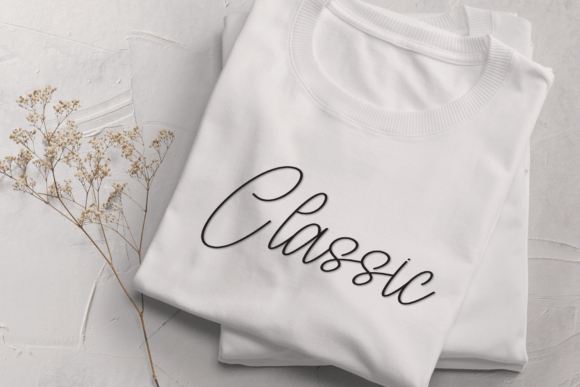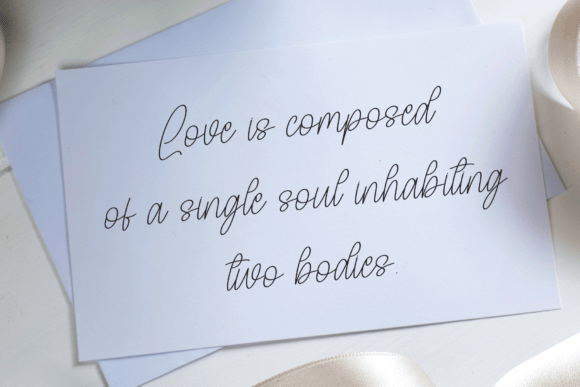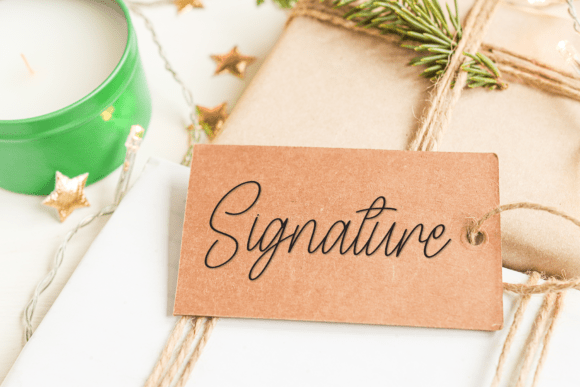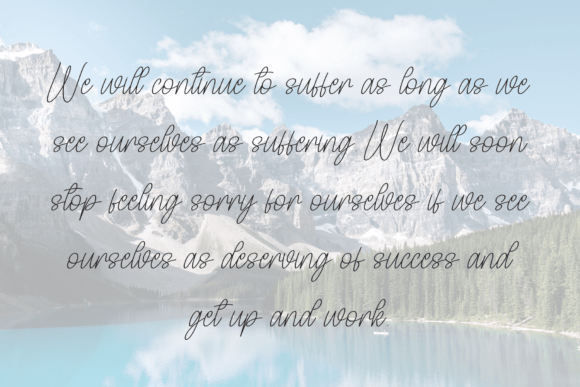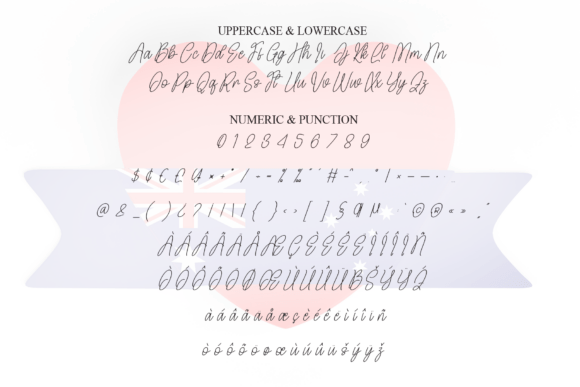
Bringing Coastal Elegance to Your Designs with Aussie Font
Are you looking for a font that captures the essence of coastal elegance and freedom? Look no further than Aussie, a beautiful handwritten script font that is sure to elevate your designs to the next level. With its fresh “new style” and incredibly long, dramatic swashes, Aussie is the perfect choice for designers and crafters who want to add a touch of sophistication and whimsy to their work.
The Characteristics of Aussie Font
Aussie font is defined by its delicate, looping terminal flourishes and incredibly long, dramatic swashes that create a feeling of effortless motion. Its airy and romantic silhouette makes it ideal for a variety of design projects, from travel blogs and beach-themed wedding invitations to artisanal product packaging and feminine branding.
One of the standout features of Aussie font is its unique blend of elegance and playfulness. The font’s long swashes and flourishes give it a sense of movement and energy, while its delicate lines and curves add a touch of sophistication and refinement.
Perfect for Coastal-Inspired Designs
Aussie font is perfectly suited for designs that evoke the feeling of the coast. Whether you’re creating a travel blog, a beach-themed wedding invitation, or a label for an artisanal product, Aussie font is sure to bring a touch of coastal elegance to your work.
The font’s relaxed, adventurous spirit makes it ideal for designs that capture the essence of the ocean and the great outdoors. With Aussie font, you can turn every word into a visual journey that transports your audience to a world of sun, sand, and surf.
Using Aussie Font in Your Designs
Aussie font is incredibly versatile and can be used in a variety of design projects. Here are a few ideas to get you started:
- Travel blogs: Use Aussie font to add a touch of coastal elegance to your travel blog. Whether you’re writing about beach destinations, outdoor adventures, or cultural experiences, Aussie font is sure to bring your words to life.
- Beach-themed wedding invitations: Make your beach-themed wedding invitation stand out with Aussie font. The font’s delicate lines and curves add a touch of romance and whimsy, while its long swashes and flourishes create a sense of drama and excitement.
- Artisanal product packaging: Add a touch of coastal elegance to your artisanal product packaging with Aussie font. Whether you’re packaging handmade soaps, candles, or jewelry, Aussie font is sure to make your products stand out.
- Feminine branding: Use Aussie font to create a feminine and elegant brand identity. The font’s delicate lines and curves add a touch of sophistication and refinement, while its long swashes and flourishes create a sense of movement and energy.
Tips for Getting the Most Out of Aussie Font
Here are a few tips for getting the most out of Aussie font:
- Experiment with different sizes: Aussie font looks great in a variety of sizes, from large headlines to smaller body text. Experiment with different sizes to find the one that works best for your design.
- Play with swashes: One of the standout features of Aussie font is its long, dramatic swashes. Experiment with different swash combinations to add a touch of elegance and whimsy to your design.
- Pair with complementary fonts: Aussie font pairs well with a variety of complementary fonts. Experiment with different font combinations to find the one that works best for your design.
Aussie font is a beautiful handwritten script font that is sure to bring a touch of coastal elegance to your designs. With its delicate lines and curves, long swashes and flourishes, and relaxed, adventurous spirit, Aussie font is the perfect choice for designers and crafters who want to add a touch of sophistication and whimsy to their work.